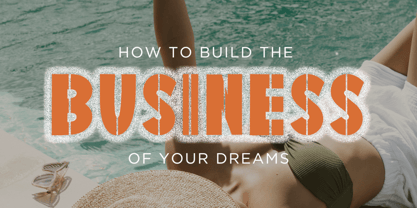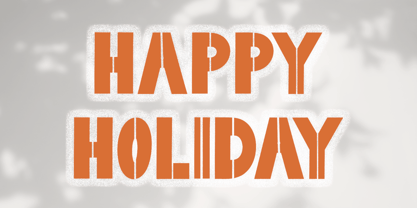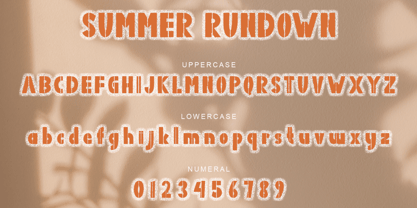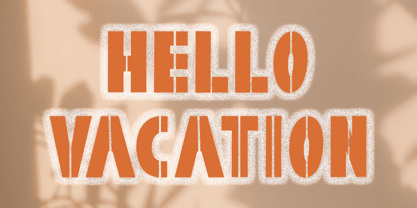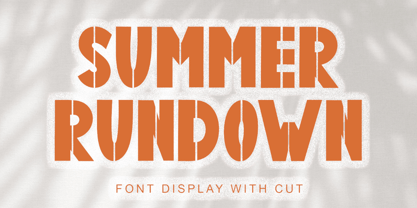
Summer Rundown
by Yoga Letter
The Summer Rundown Font Family was designed by Isroni Yoga Prasetya and published by Yoga Letter. Summer Rundown contains 1 styles. More about this family
"Summer Rundown" is a unique and split display font. This font is equipped with uppercase, lowercase, numerals, punctuations and multilingual support. It is very suitable for use in summer, spring, camping, holiday, vacation, banner, poster, business branding, sticker and others.
Designers: Isroni Yoga Prasetya
Foundry: Yoga Letter
Summer Rundown